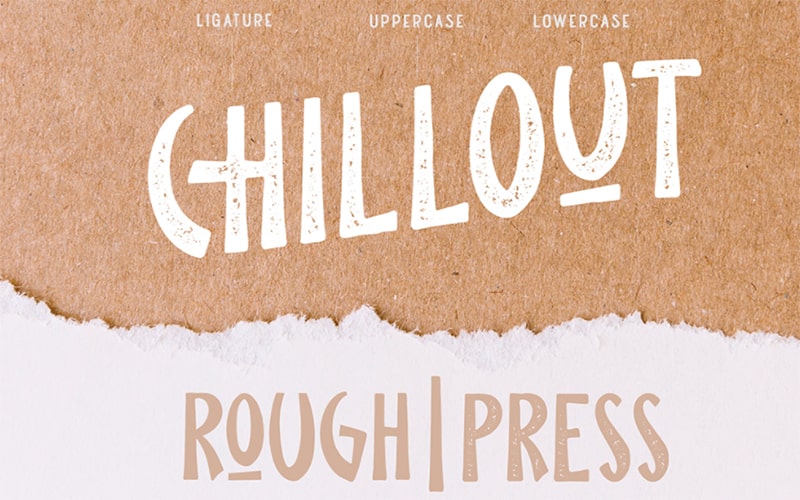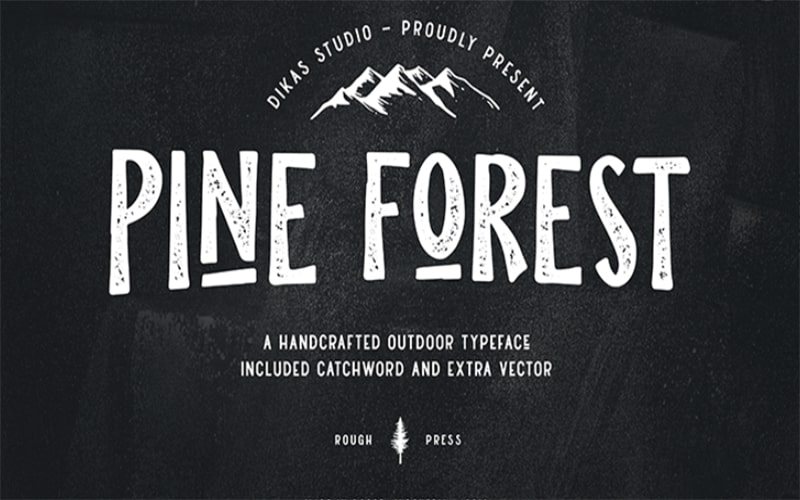
Pine Forest Font is a Fancy, Display, Handcrafted typeface that is affected by external activities. This Font is designed by Dikas Studios for the first time and it was updated on July 29, 2019.
He has a very frisky and handmade character. It is a world-famous font because it supports multilingual languages. This makes it easy to understand in any language.
This vintage type font has come in two amazing styles such as Pine Forest Rough and Pine Forest press styles. These styles give an impressive look to the pine forest font.
This is a suitable and perfect font to create logos, product packaging, quotes, typography design, invitation, branding, t-shirt, label badge poster, and many more.
The features of this font are that Pine Forest consists of a character set that includes uppercase, Lowercase letters with numbers, punctuation marks, and ligatures.
Pine Forest Font
This combination includes comfort and extra vectors. That can be used to create impressive designs and give an amazing look.